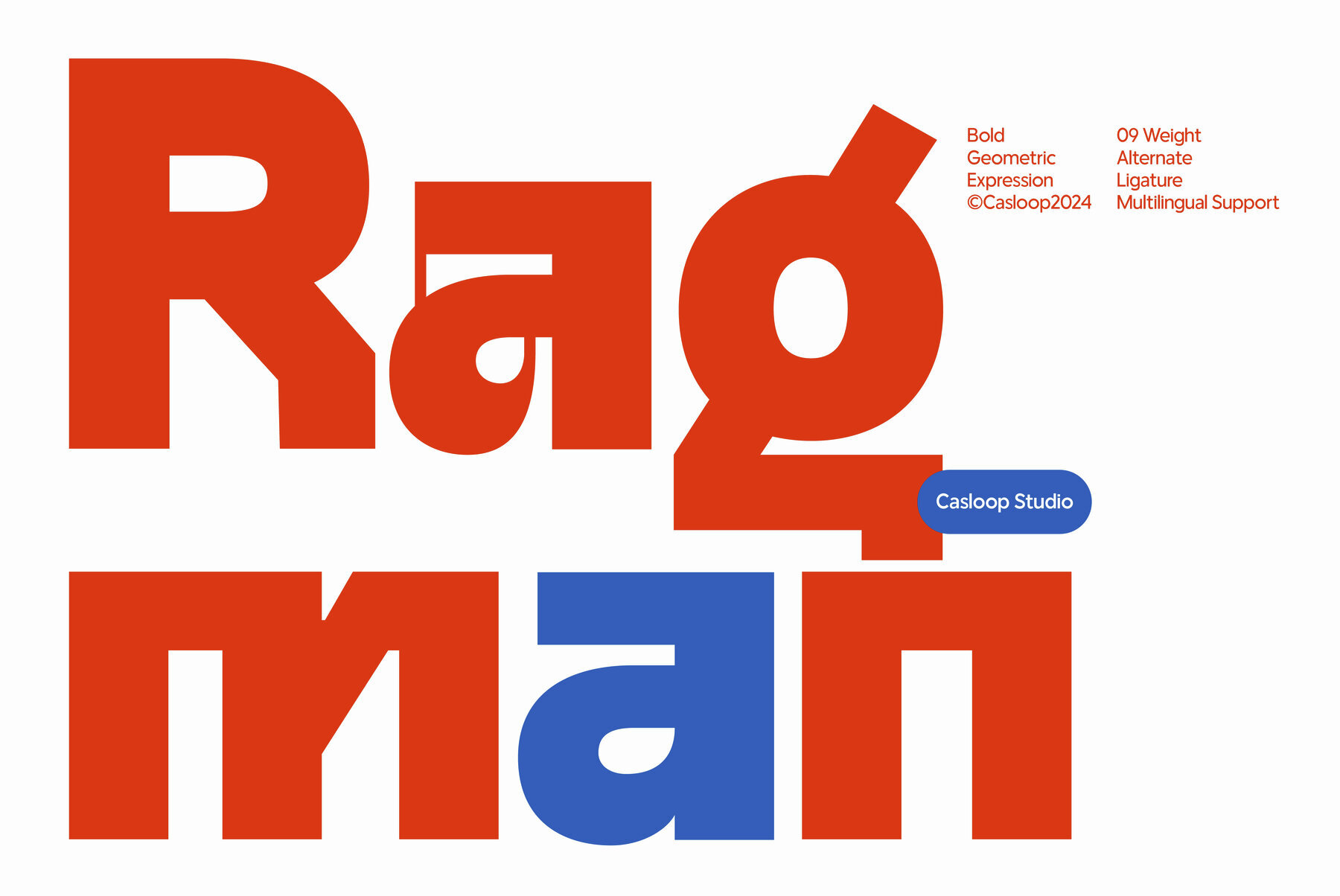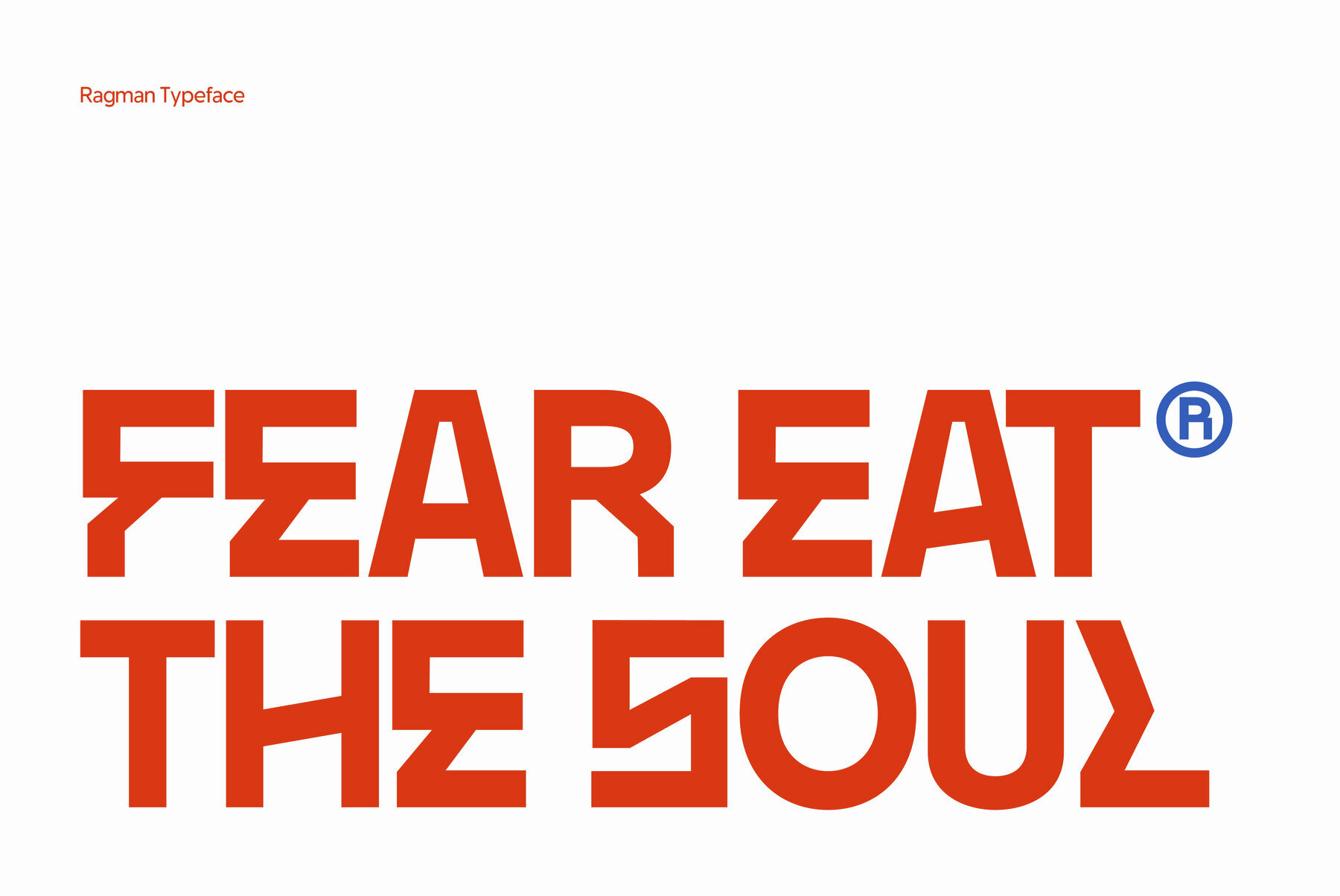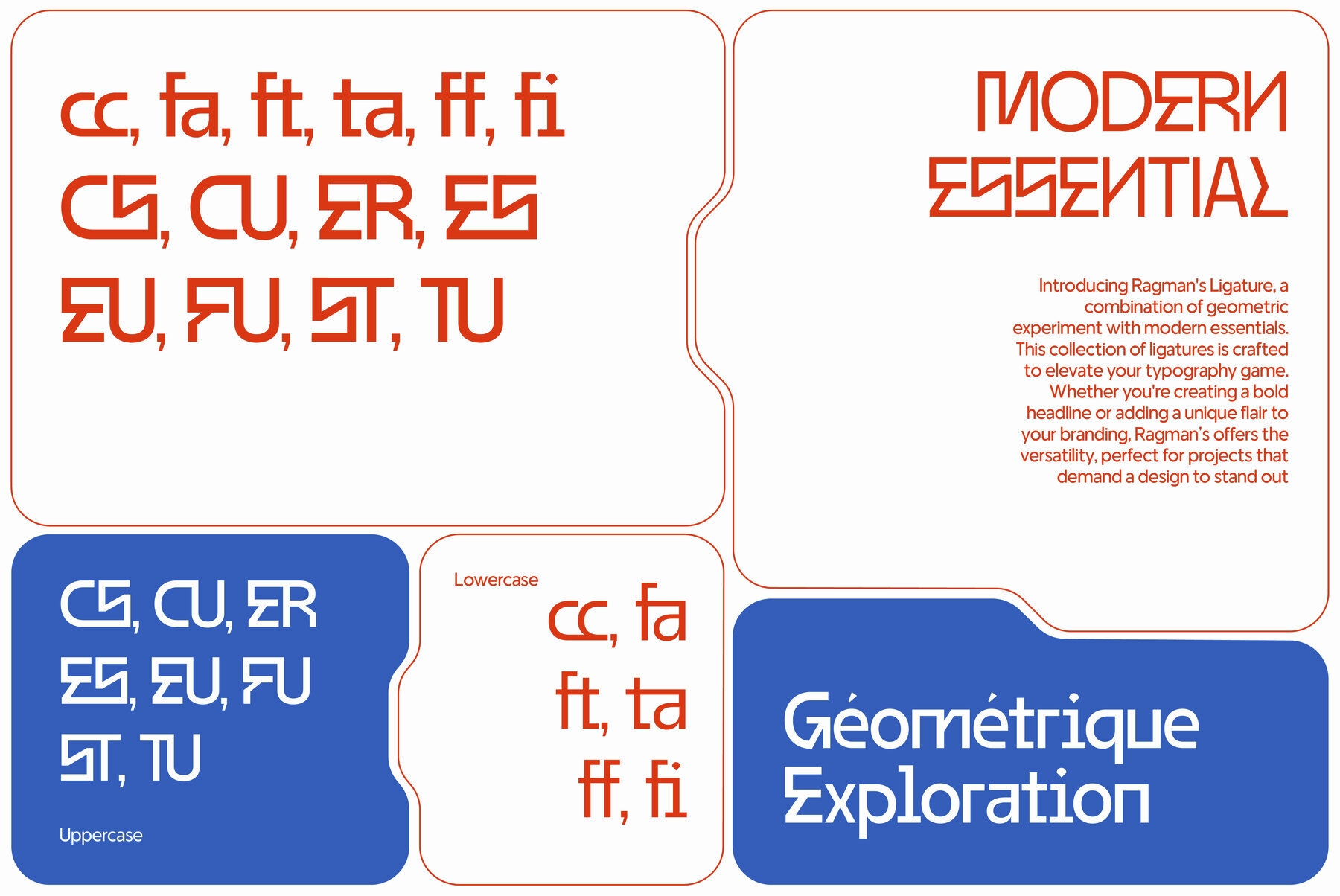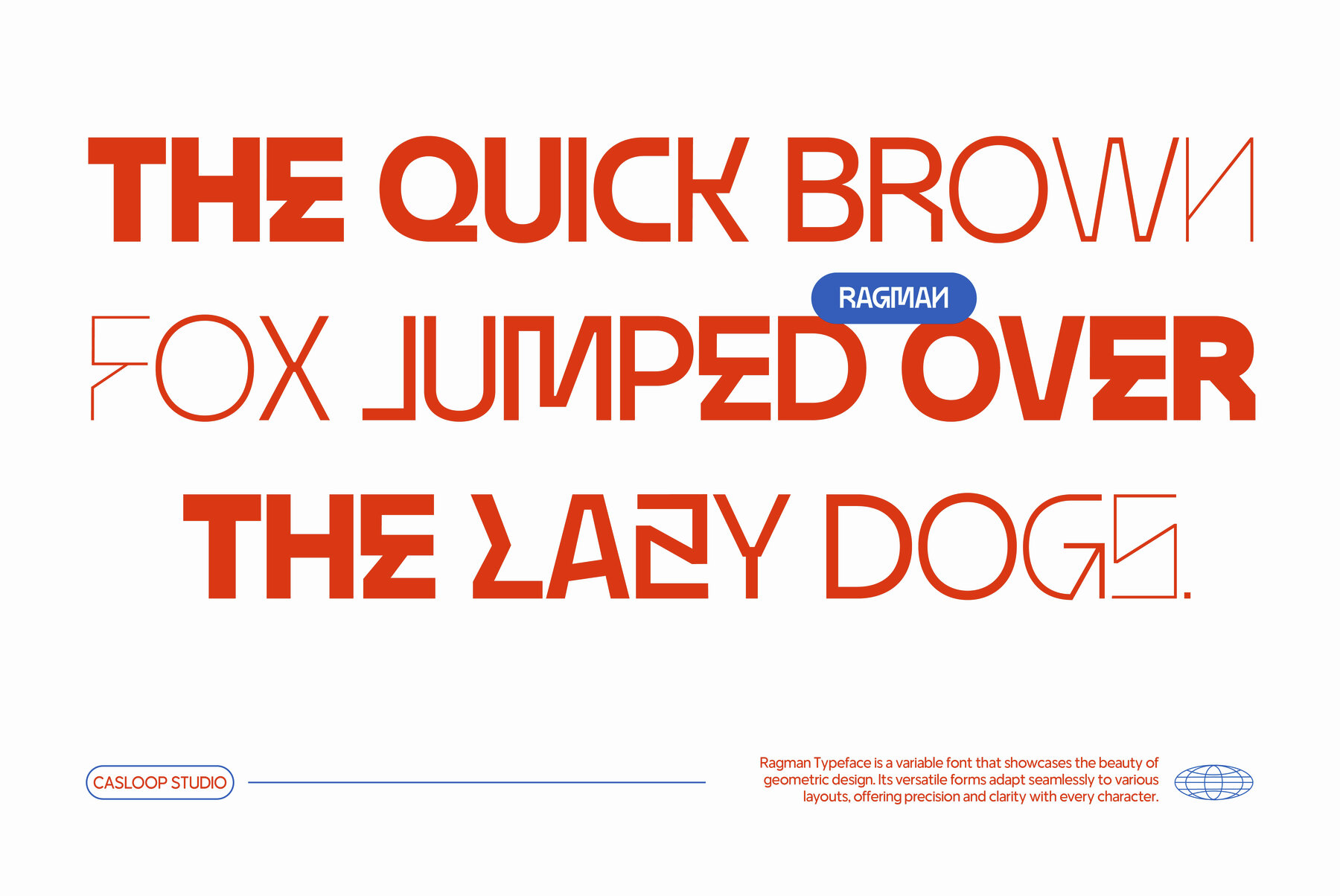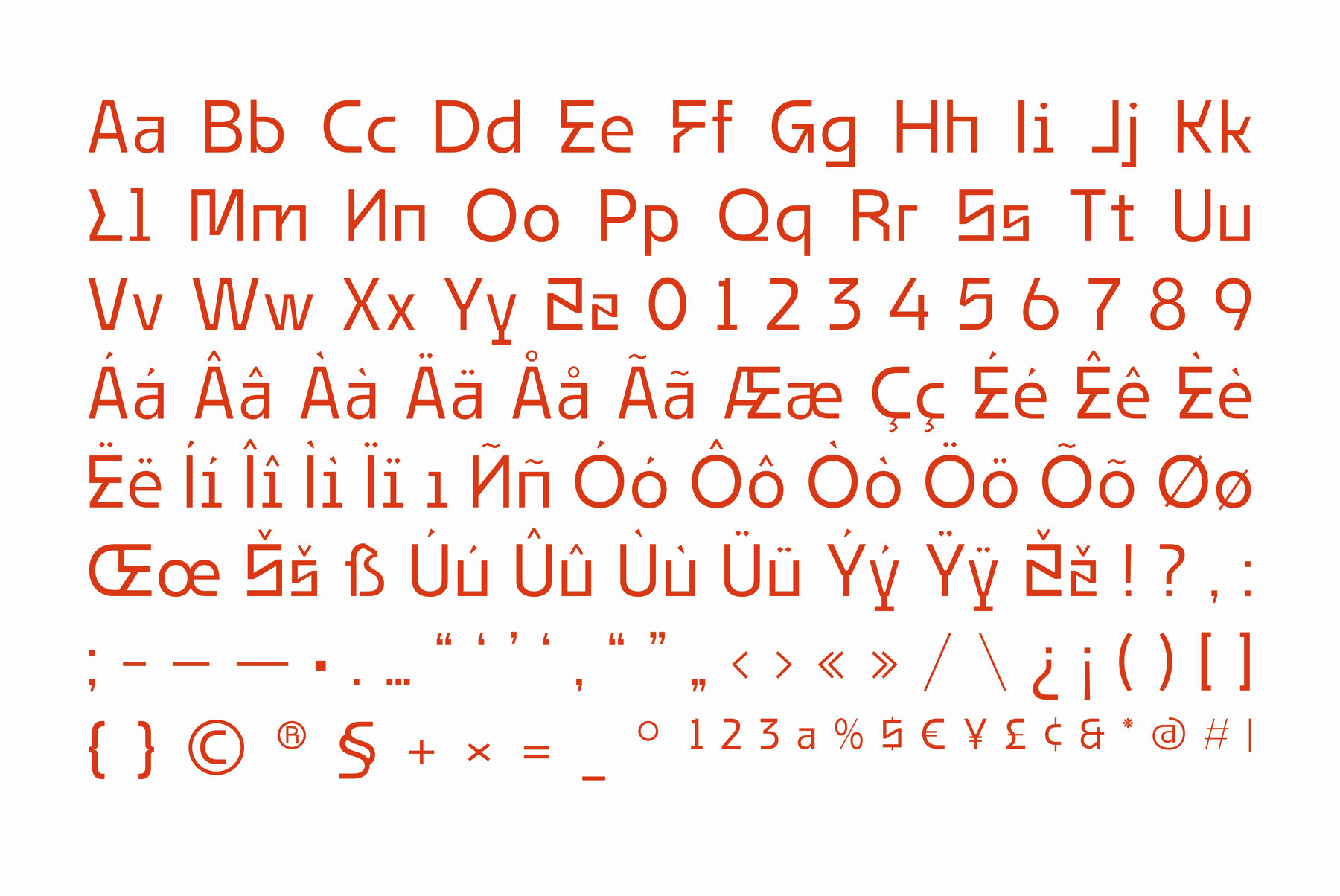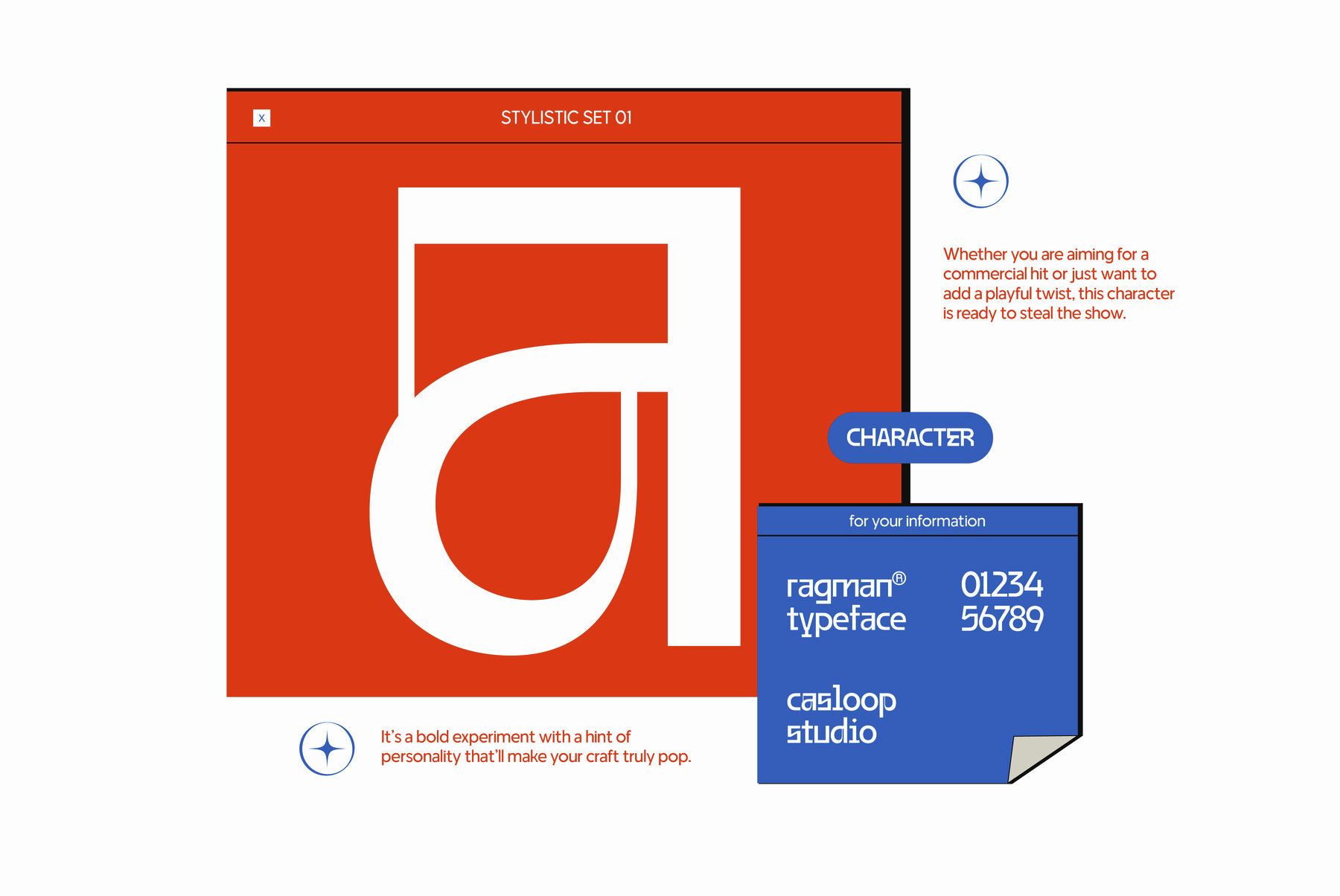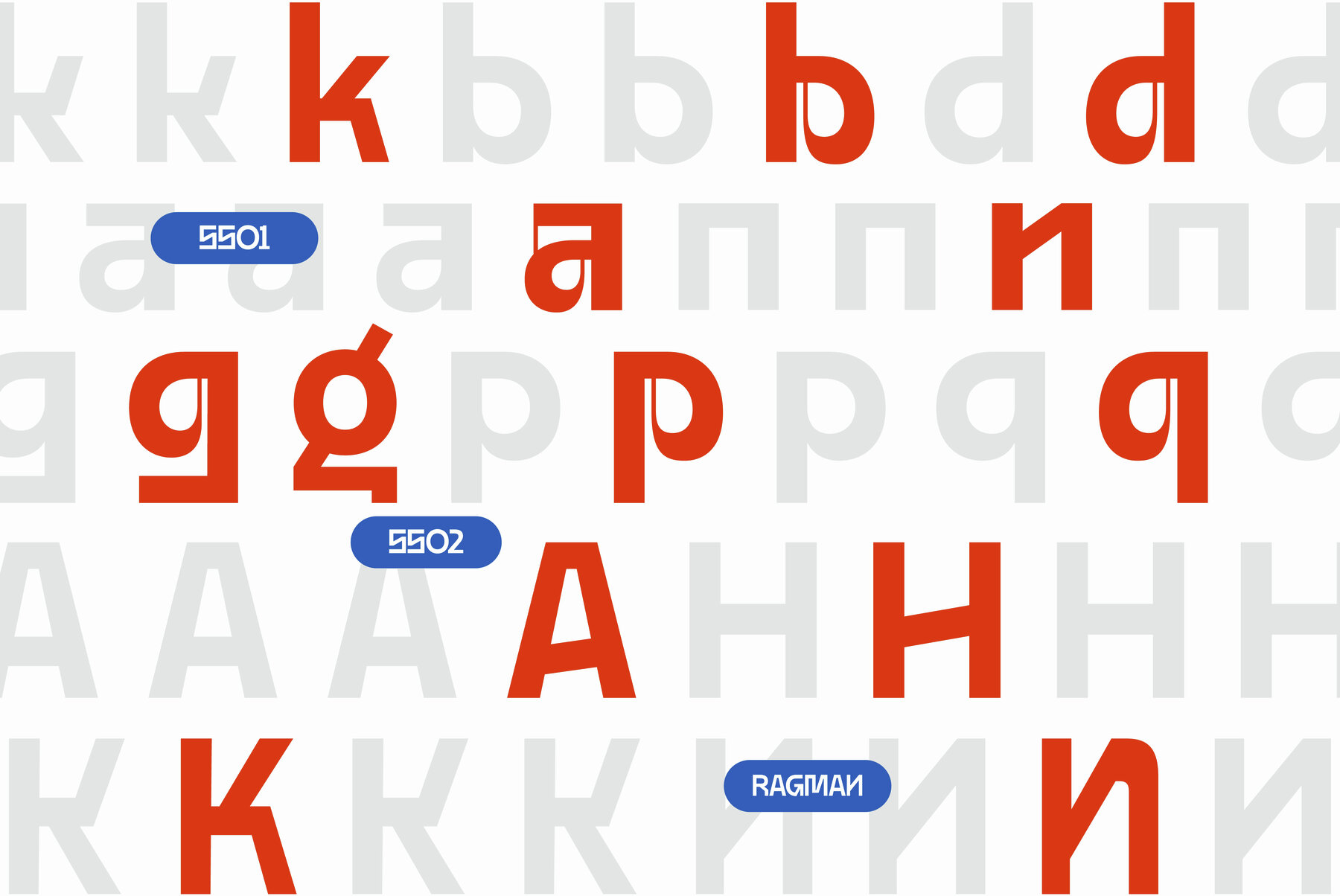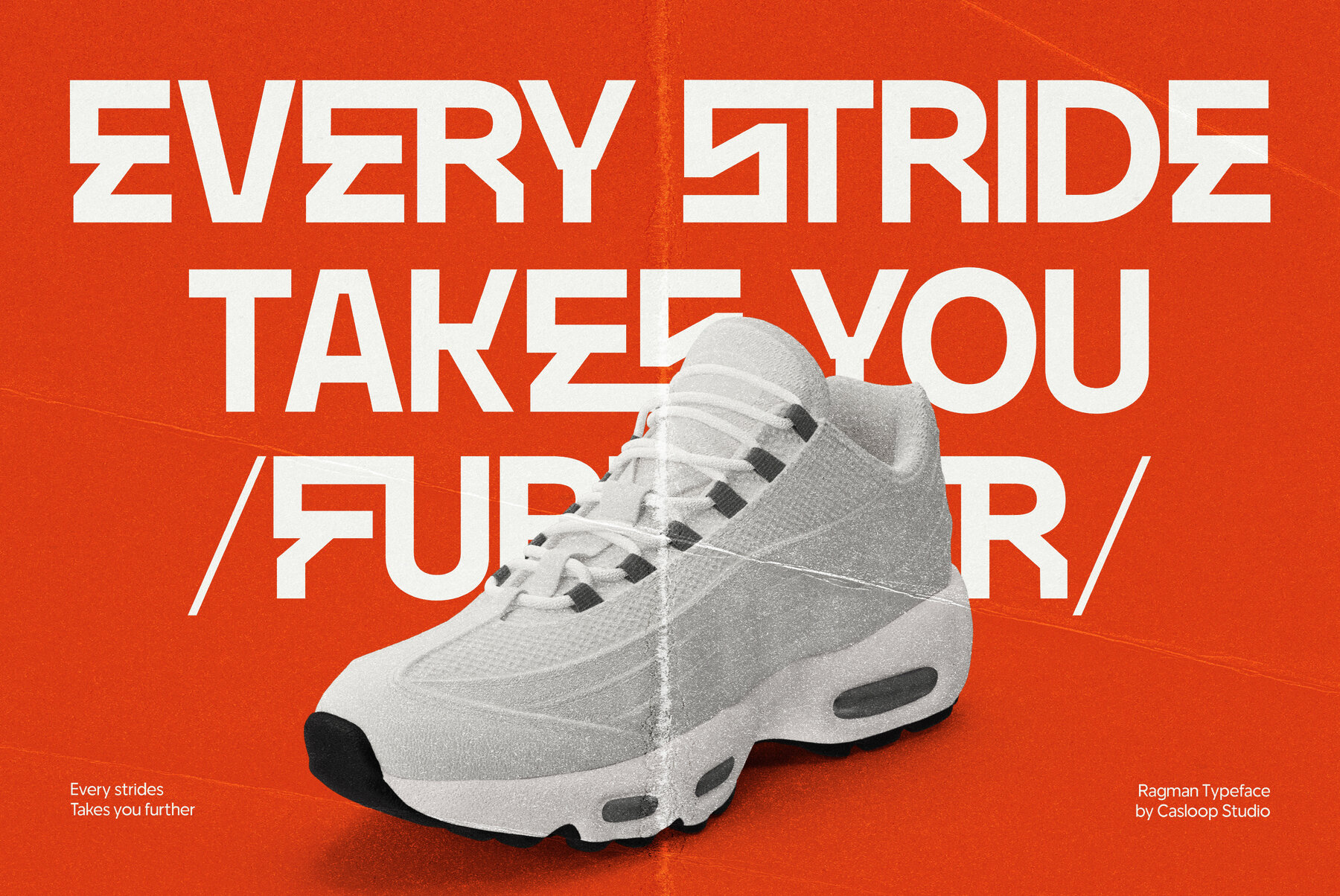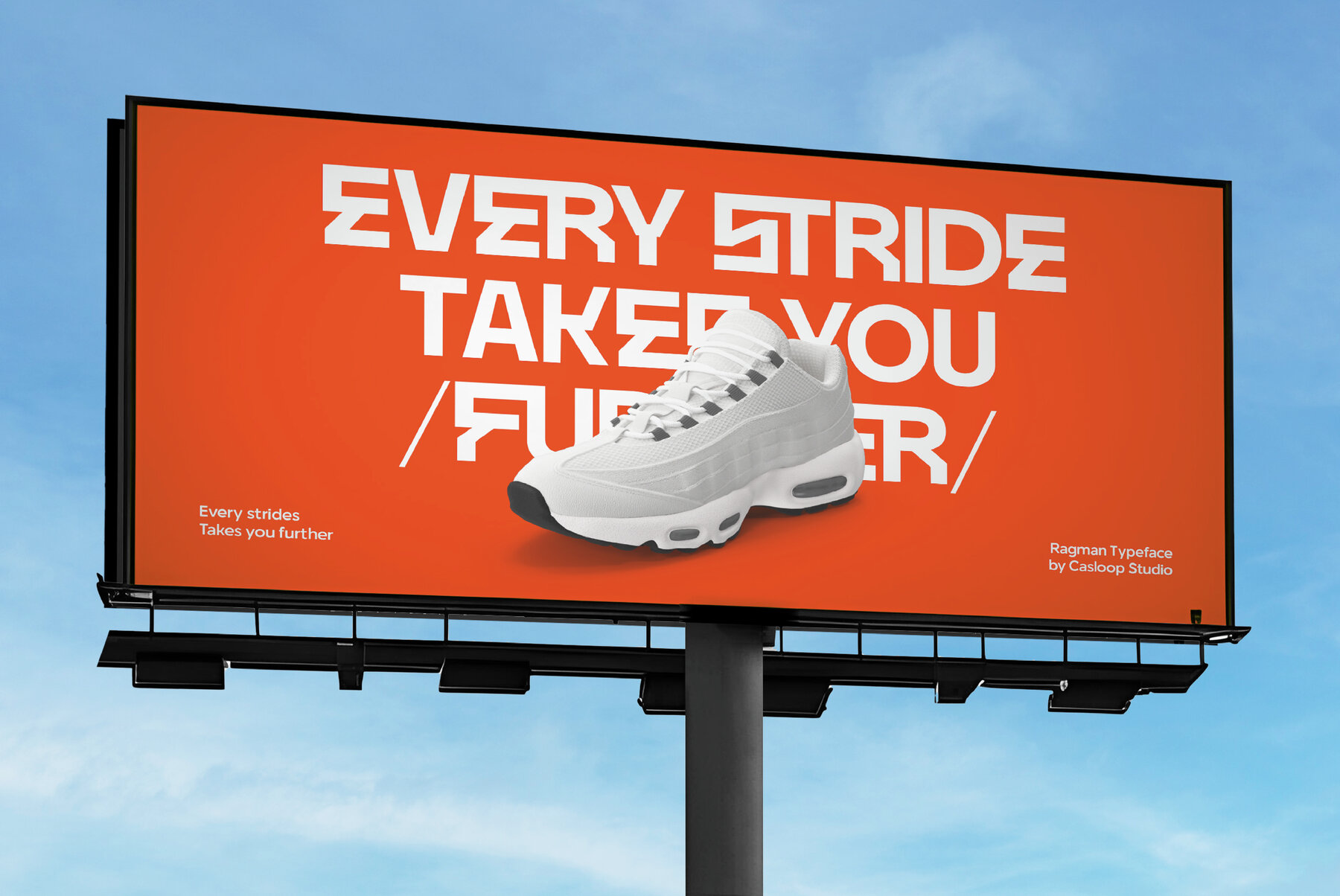
Ragman Font
Embrace a synthesis of geometric precision and character with Ragman, a modern grotesque typeface built for both digital and print projects. Merging the future of typography with style, Ragman enhances professional and corporate settings with a contemporary touch. Designed for versatility, Ragman balances impact and expression, featuring a range of weights from Thin to Black. Its streamlined sans-serif profile accommodates both a comprehensive Font Family and a dynamic Variable font. With its structured, boxy forms, Ragman ensures memorable branding, logos, websites, and packaging. This typeface includes a broad linguistics range, covering languages such as Bosnian, Catalan, Czech, Danish, German, Spanish, French, Croatian, Italian, Swedish, Turkish, and more. Ragman caters to digital media, text animations, and motion graphics, delivering a fresh and timeless aesthetic. Its geometric lines and distinct details differentiate your content with originality.Ragman: Modern Grotesque Font for Distinctive Design